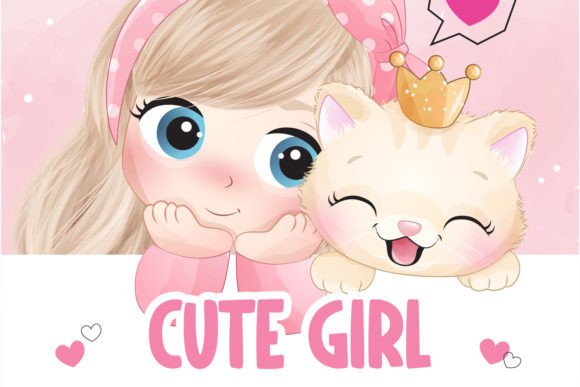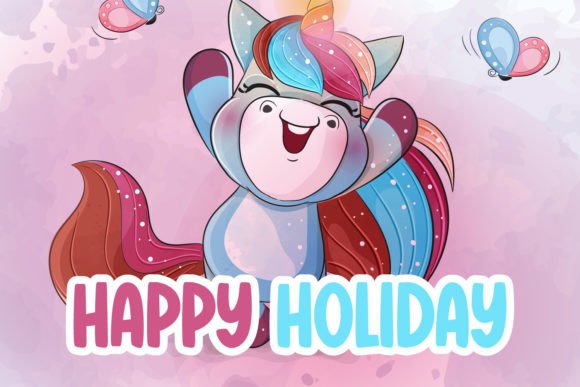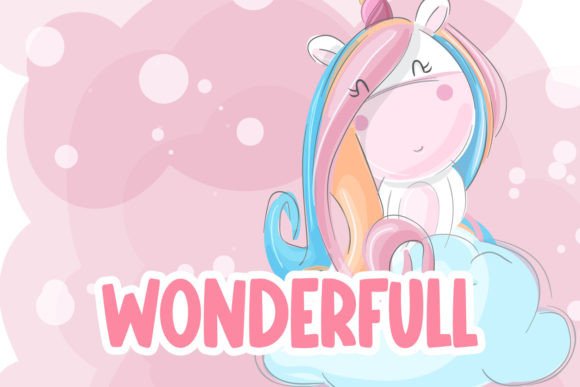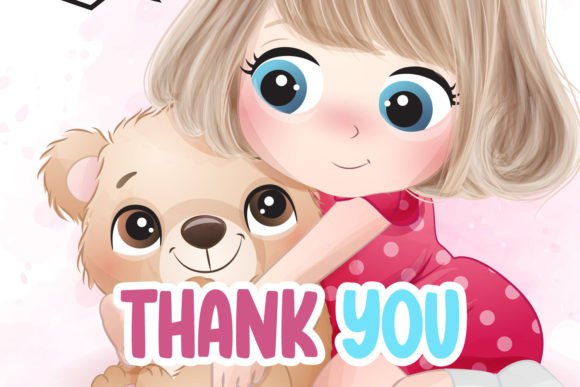
The Ultimate Guide to Barbie Font: A Cute, Playful, and Retro Display Font
I’ll never forget the time I was working on a project to create a custom greeting card for a friend’s birthday. I had all the design elements ready – the colors, images, and layout – but I was stuck on finding the perfect font. That’s when I stumbled upon the Barbie font, and it instantly brought my design to life! In this article, I’ll share my experience with this adorable font, its features, and how to make the most of it in your creative projects.
An Honest Review of Barbie Font
The Barbie font is a cute, playful, and retro display font that’s perfect for a wide range of applications, from greeting cards to headlines. Here’s what I love about it:
- ✨ Cute and Playful: The font has a fun, bubbly personality that’s sure to add a touch of whimsy to your designs.
- ✅ Retro Vibe: The font’s retro aesthetic is perfect for creating vintage-inspired designs or adding a nostalgic touch to your projects.
- 💡 Versatile: The font is suitable for a wide range of applications, from digital designs to print materials.
However, I did notice a few quirks:
- 🤔 Limited Legibility: The font’s playful nature can make it less legible at smaller sizes or in longer blocks of text.
- ⚠️ Not Suitable for Body Text: The font is best used for headlines, titles, or short phrases, rather than body text.
- Experiment with the font’s OpenType features, such as Stylistic Alternates and Glyphs, to add more personality to your text.
The Backstory of Barbie Font
The Barbie font was designed by a talented type designer who wanted to create a font that captured the playful, carefree spirit of the iconic Barbie doll. The font was inspired by vintage typography and is meant to evoke a sense of nostalgia and fun.
| What is the Barbie font best used for? | The Barbie font is best used for headlines, titles, and short phrases, rather than body text. |
| Can I use the Barbie font for digital designs? | Yes, the Barbie font can be used for digital designs, such as social media graphics, presentations, and more. |
| Is the Barbie font available in different languages? | The availability of the Barbie font in different languages may vary, but it can be used with many languages that support the Latin alphabet. |